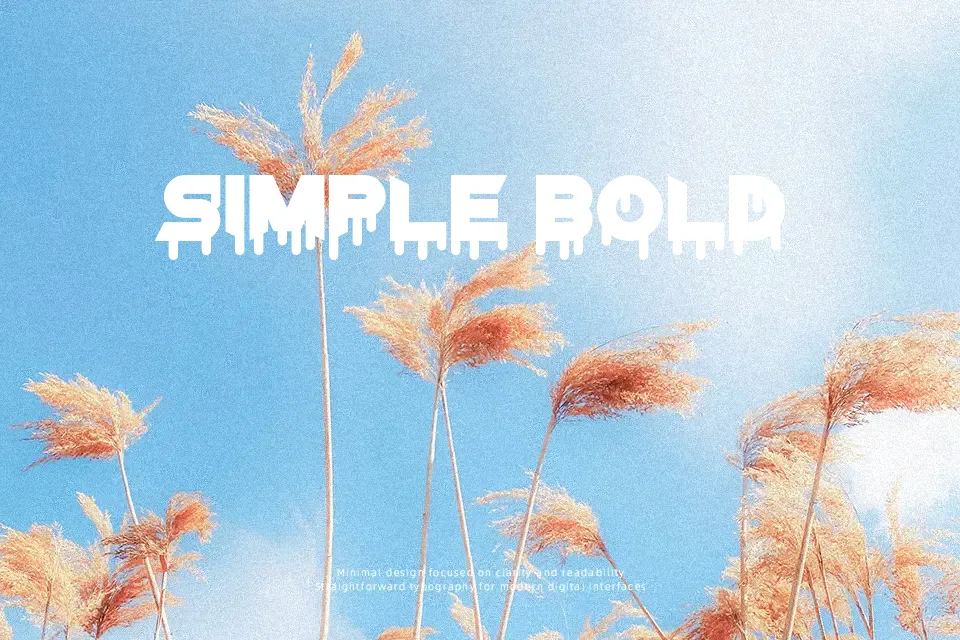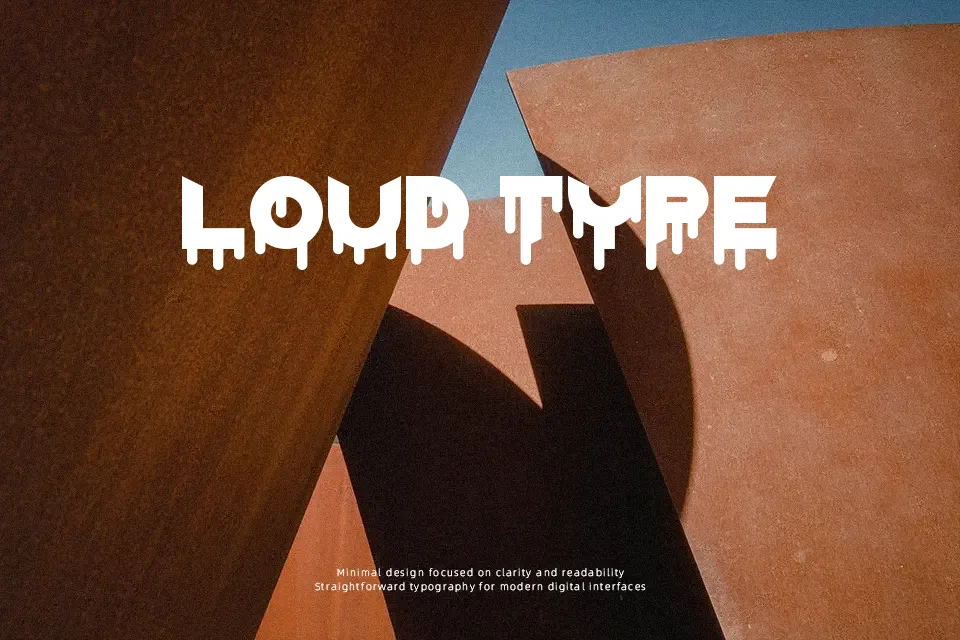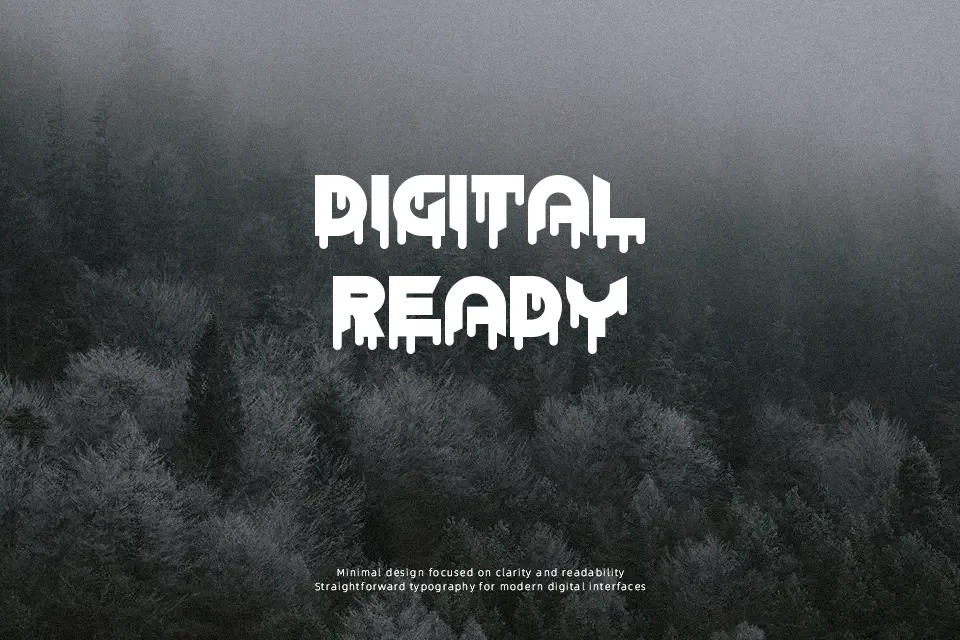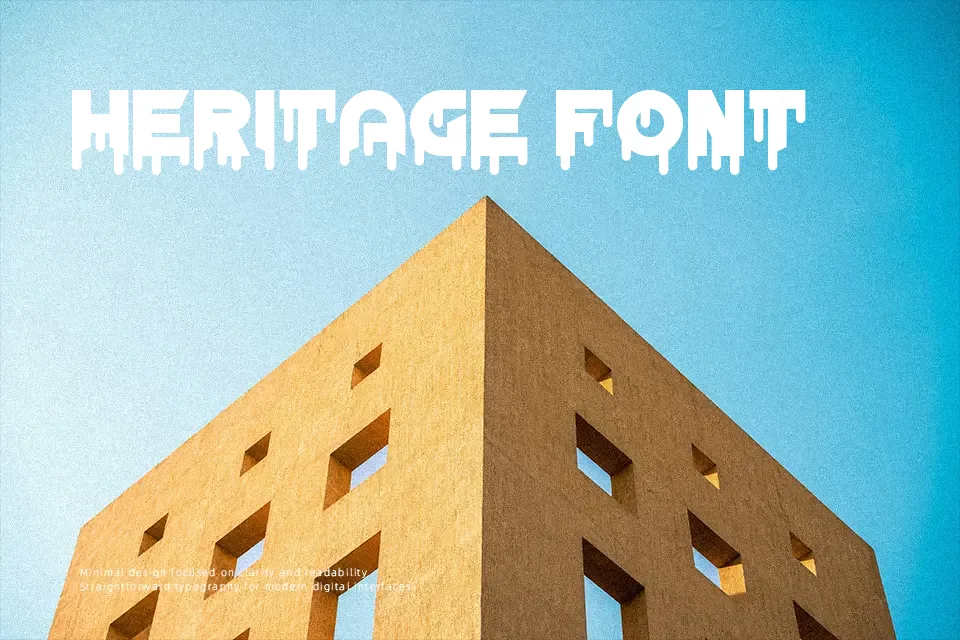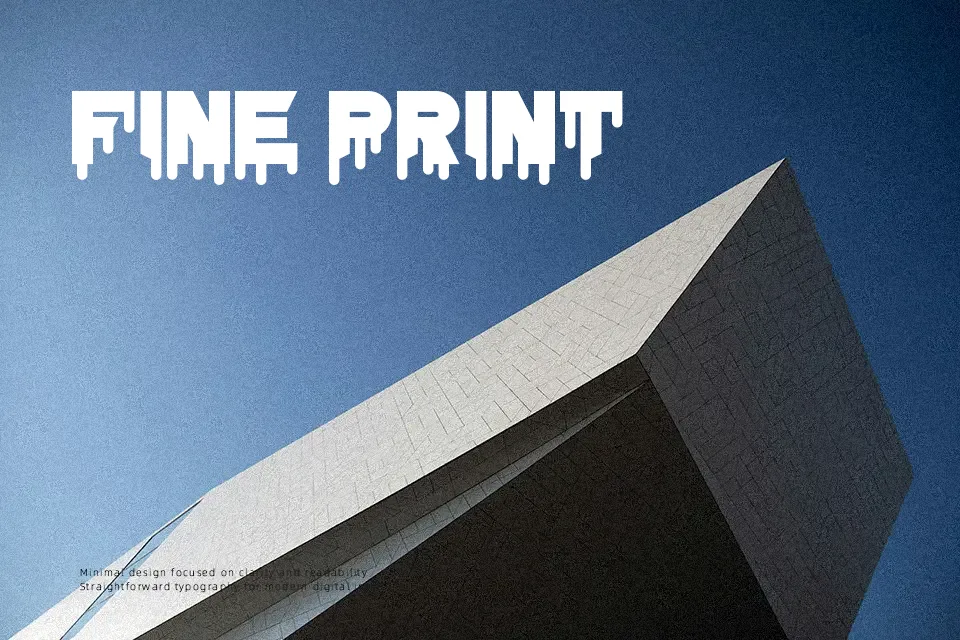
Thrash Decision Font
Designed by Chequered Ink
Designed with visceral melting contours, Thrash Decision Font establishes an imposing visual presence through thick, irregular strokes that terminate in downward dripping fluid accents. Consistent cap height proportions give each glyph solid structural grounding, while tightly drawn letter spacing intensifies the dense, chaotic aesthetic. At large display scales, the typeface maintains adequate character distinction for haunted house posters, death metal merchandise, and promotional teaser graphics. However, the heavy decorative distortions severely compromise legibility when set at smaller point sizes. Consequently, the letterforms become impractical for continuous body text or structured user interface layouts where clear reading comfort is required.
Best For: horror film title graphics, heavy metal album covers, halloween event flyers, haunted attraction signage
Not Ideal For: long paragraph text, mobile user interface labels, formal corporate documents, dense editorial layouts
Perfect for film, gaming, and halloween, with a bold and decorative style.